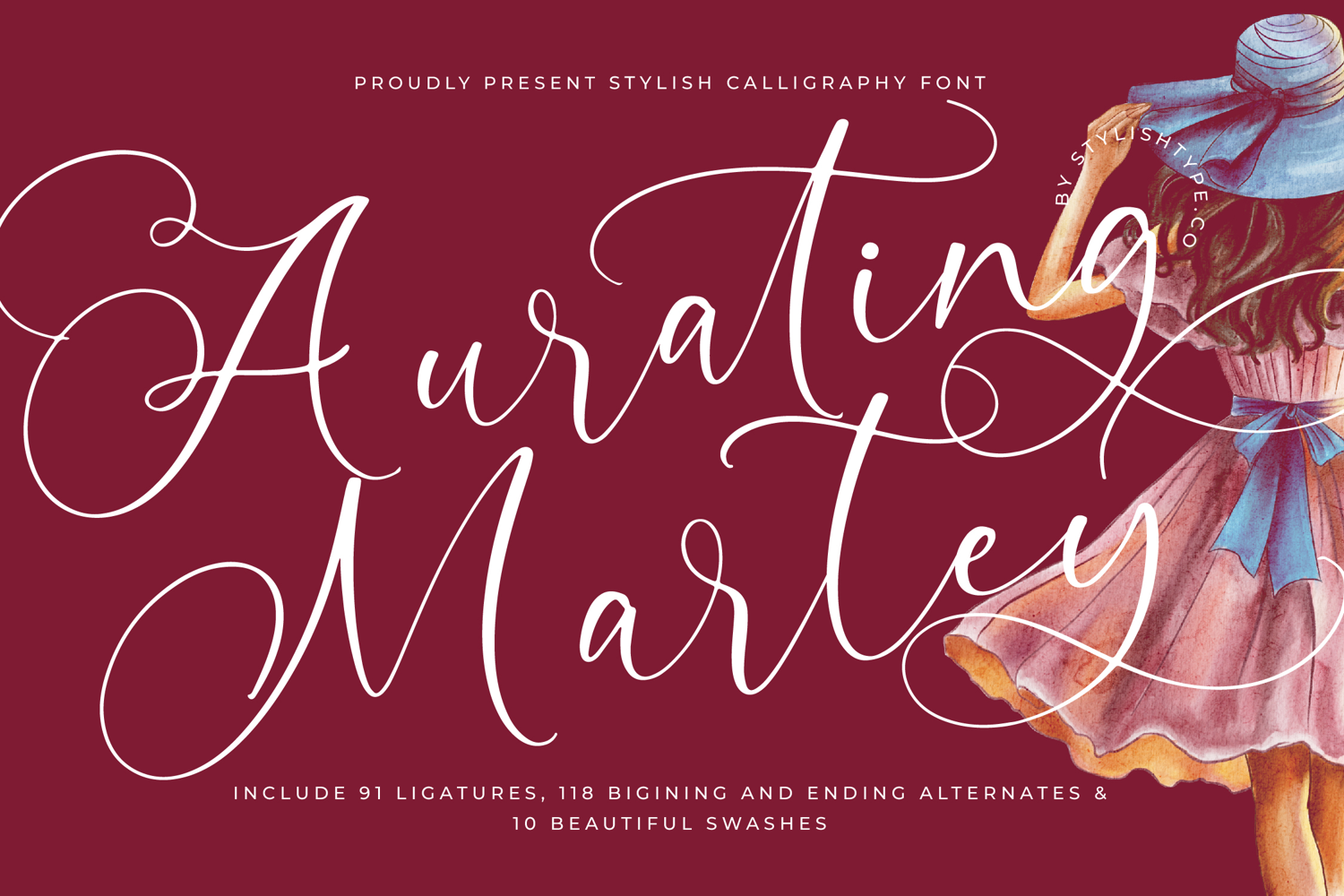
Aurating Martey - Stylish Calligraphy Font
Elevate your design projects with unparalleled grace. The exquisite Aurating Martey - Stylish Calligraphy Font is a breathtaking, fluid script designed for designers who demand sophistication and visual impact. Characterized by its sweeping flourishes and generous connecting strokes, this font captures the authentic feel of bespoke, hand-lettered calligraphy. It is the definitive choice for establishing a tone of refined elegance and high-contrast drama in any visual medium.
Unlock boundless creative potential through its robust OpenType features. Featuring an impressive collection of 91 ligatures, 118 beginning and ending alternates, and 10 beautiful swashes, Aurating Martey - Stylish Calligraphy Font offers truly limitless customization. This extensive stylistic range makes it perfect for luxury branding, exclusive event invitations, bespoke wedding stationery, high-end product packaging, and editorial magazine titles that require an authentic, artisanal touch.
Achieve professional reach across the globe with its comprehensive technical build. Designed for maximum accessibility and seamless integration across major design software, Aurating Martey - Stylish Calligraphy Font ensures a flawless workflow. With its extensive multilingual support, Aurating Martey - Stylish Calligraphy Font adapts seamlessly across global markets, making it incredibly versatile for international projects and ensuring your brand voice is consistent worldwide.
Make an unforgettable, lasting impression that resonates deeply with discerning audiences. Investing in Aurating Martey - Stylish Calligraphy Font is investing in visual storytelling; its unique character shaping and sophisticated rhythm elevate plain text into engaging artistry. Choose this font when you need to convey prestige, romance, and timeless sophistication, guaranteeing your creative work stands distinctly apart from the competition.